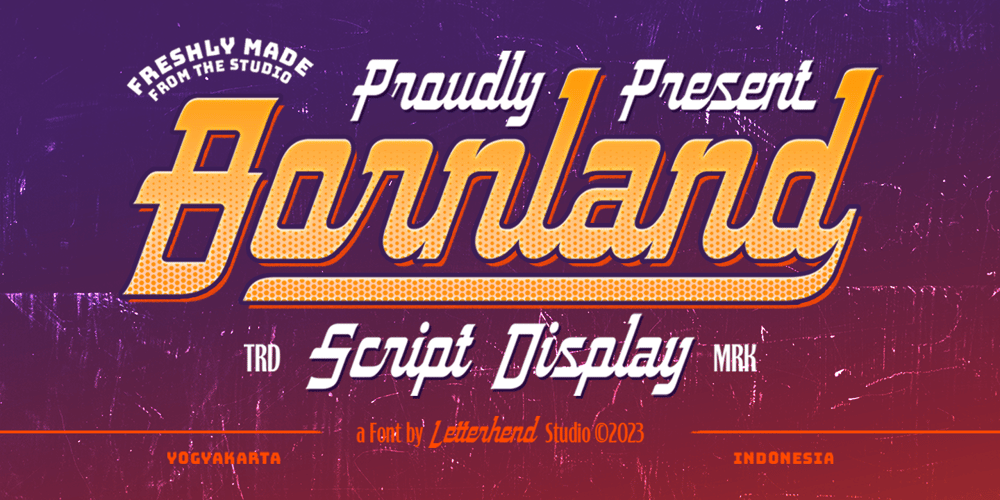
Bornland Font Family was designed by Hendry Juanda and published by Letterhend. Bornland contains 2 styles and family package options. Introducing Bornland, a dynamic font that embodies a sporty and urban street art aesthetic. With its bold and energetic script style, this font brings a sense of edgy flair to any design project. Perfect for sports-themed branding, apparel, posters, and urban-inspired designs, Bornland adds a vibrant and expressive touch to capture attention and create a visually captivating experience.Features : Uppercase & lowercase Numbers and punctuation Alternates & Ligatures Multilingual PUA encoded We highly recommend using a program that supports OpenType features and Glyphs panels like many of Adobe apps and Corel Draw, so you can see and access all Glyph variations.